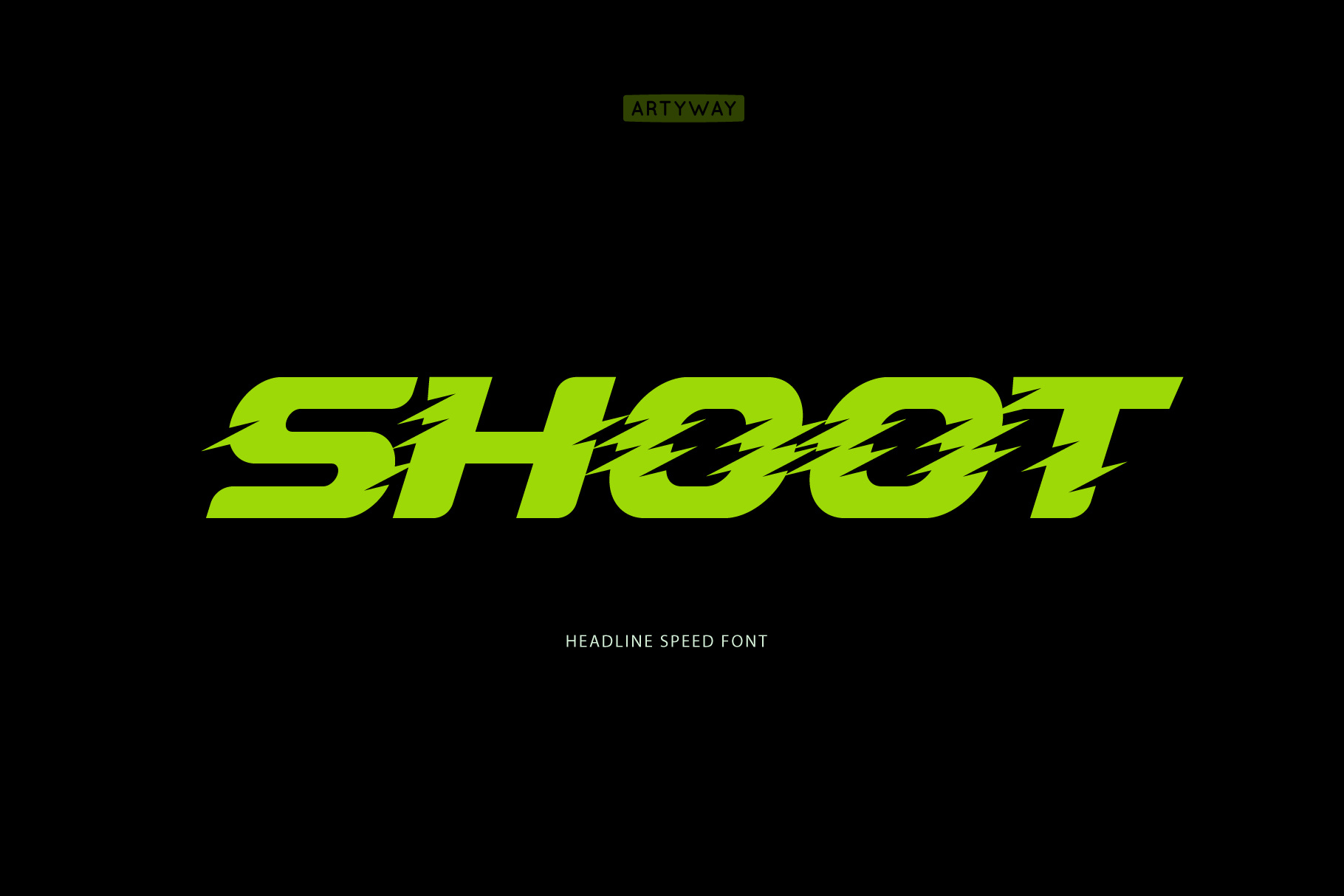
Dynamic Headline Font
The Shoot Font β Dynamic and electrifying, this typeface is designed for high-energy projects. Featuring sharp lightning bolt cuts, itβs perfect for designs that demand attention and speed.
Sports branding
Action-packed posters
High-energy headlines
Features:
β Bold and striking design
β Perfect for sports and action themes
β Makes your text pop with electrifying style